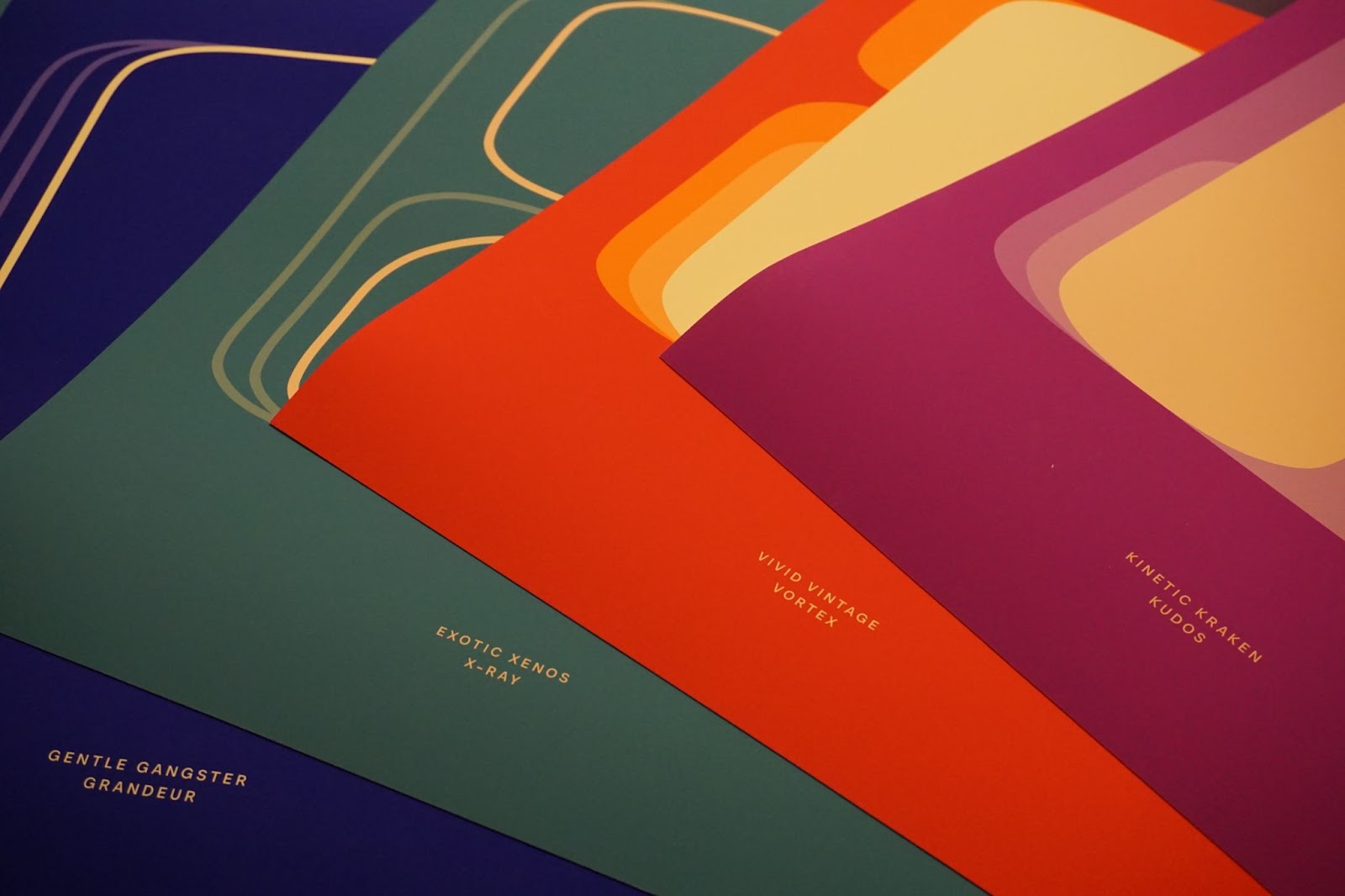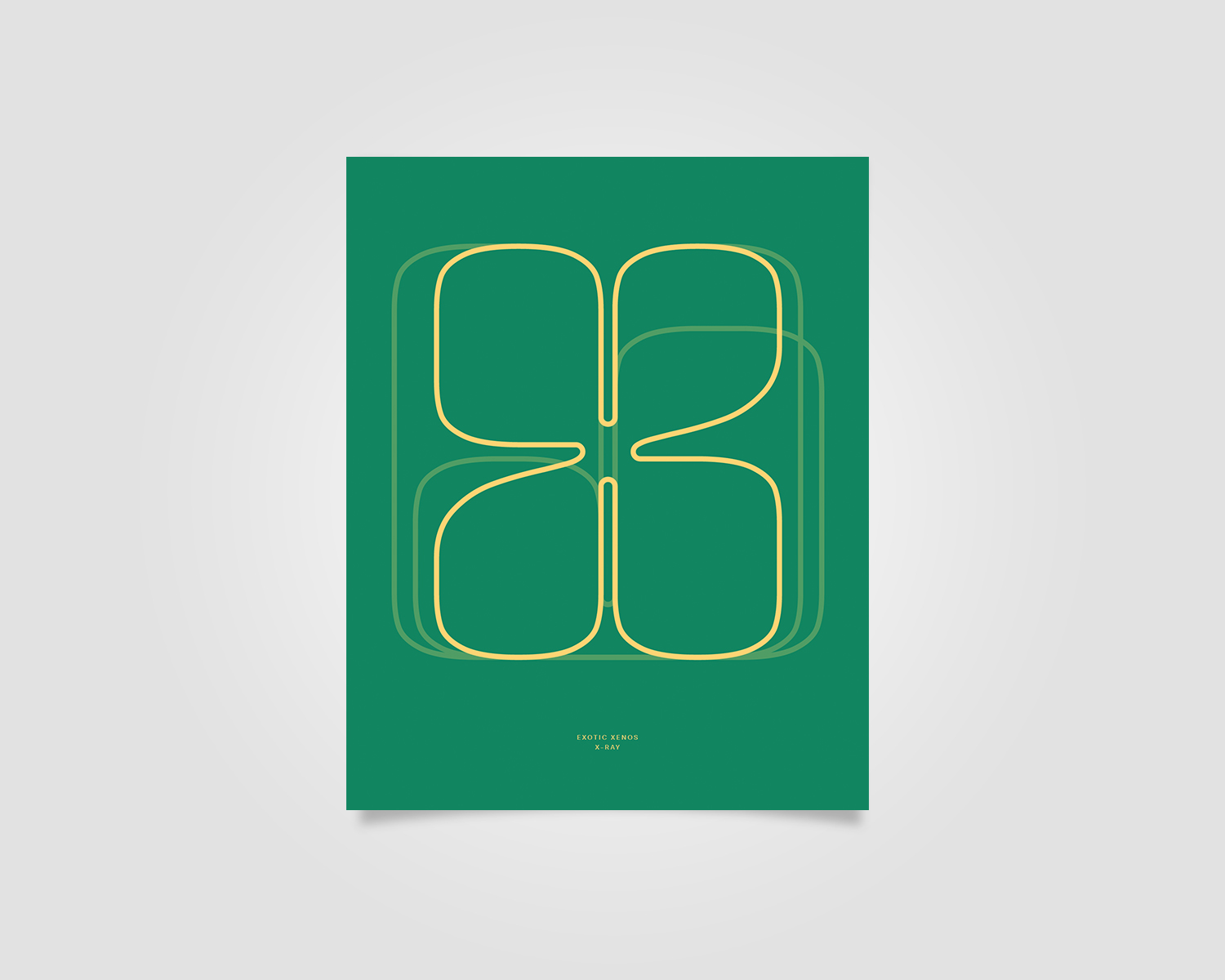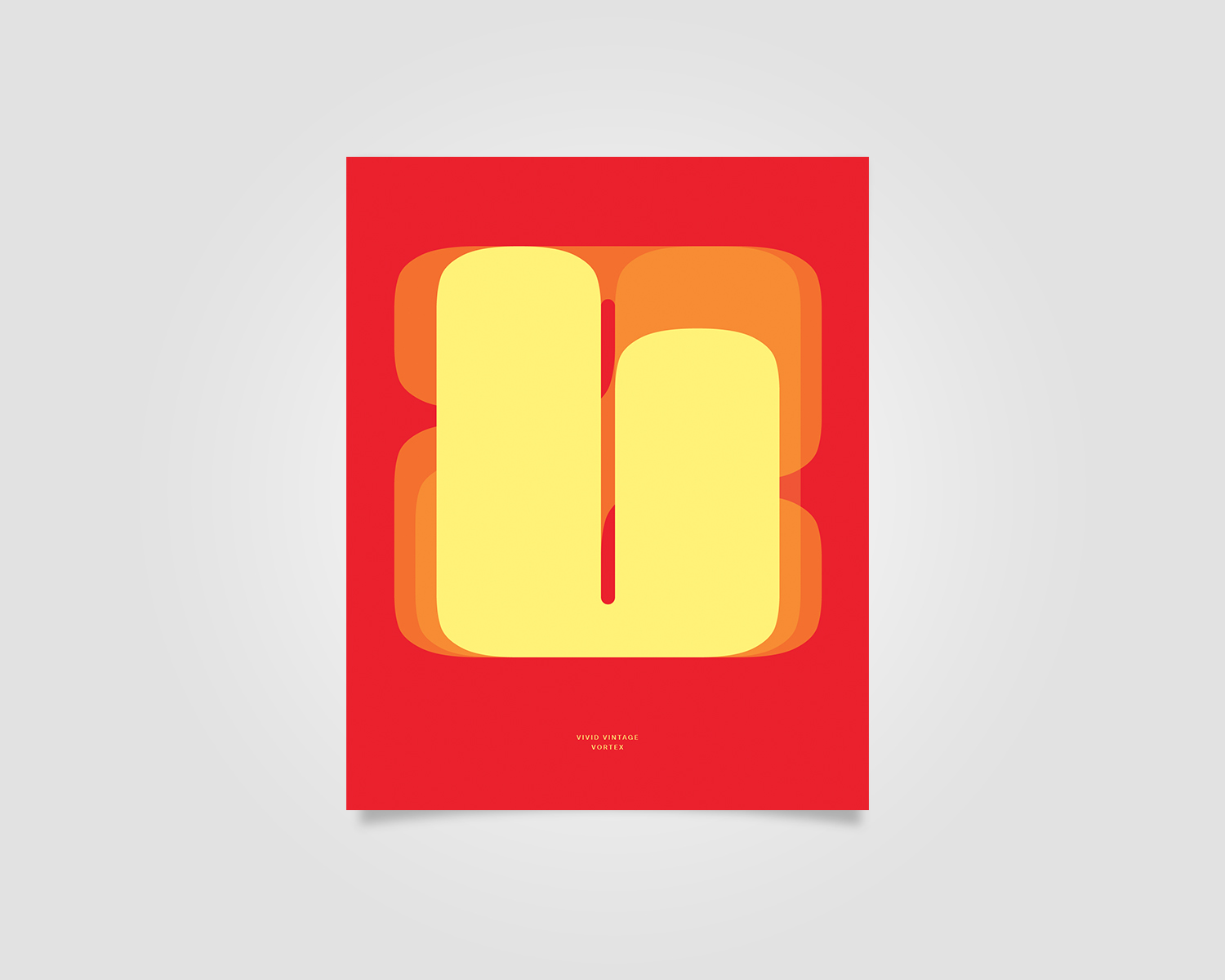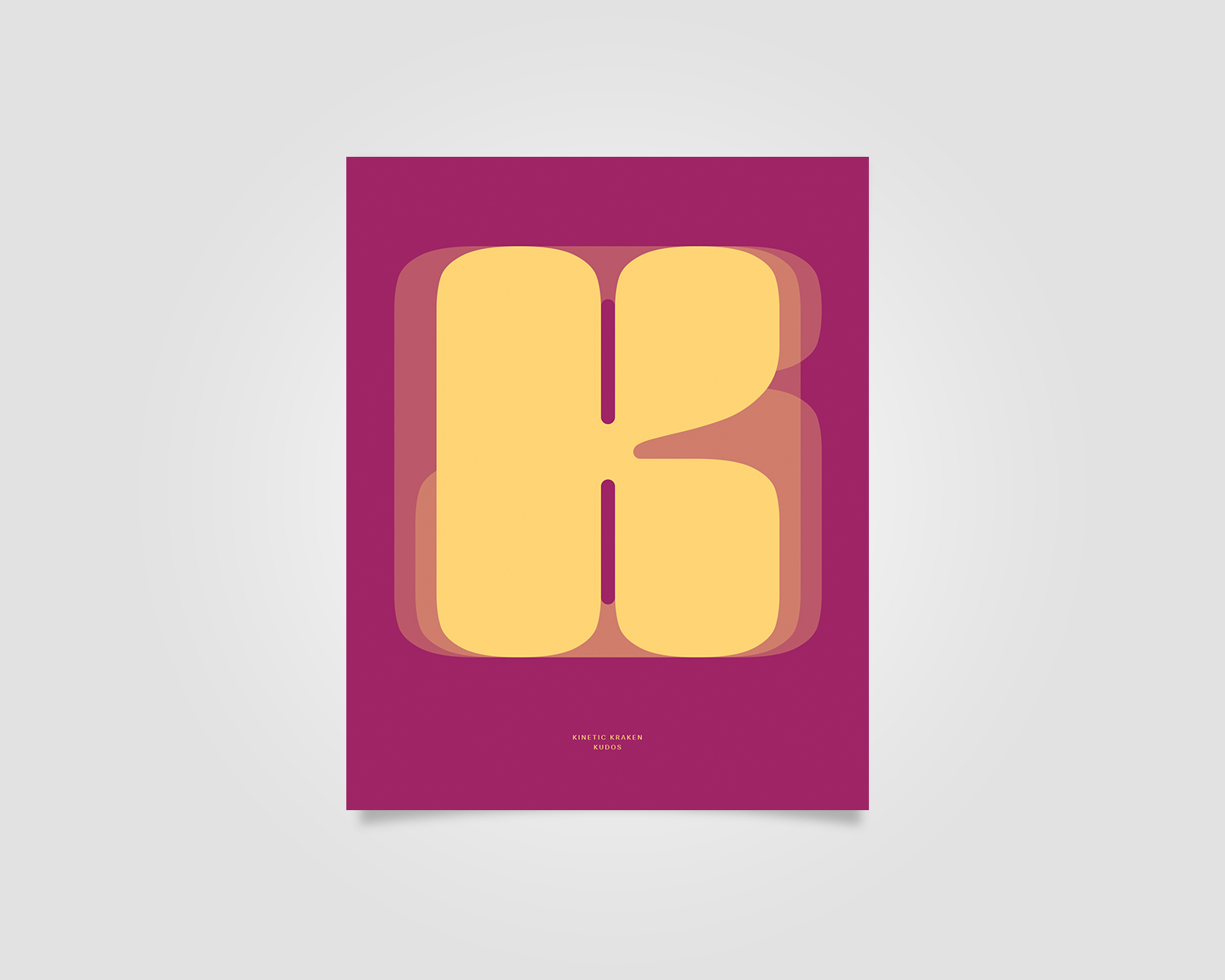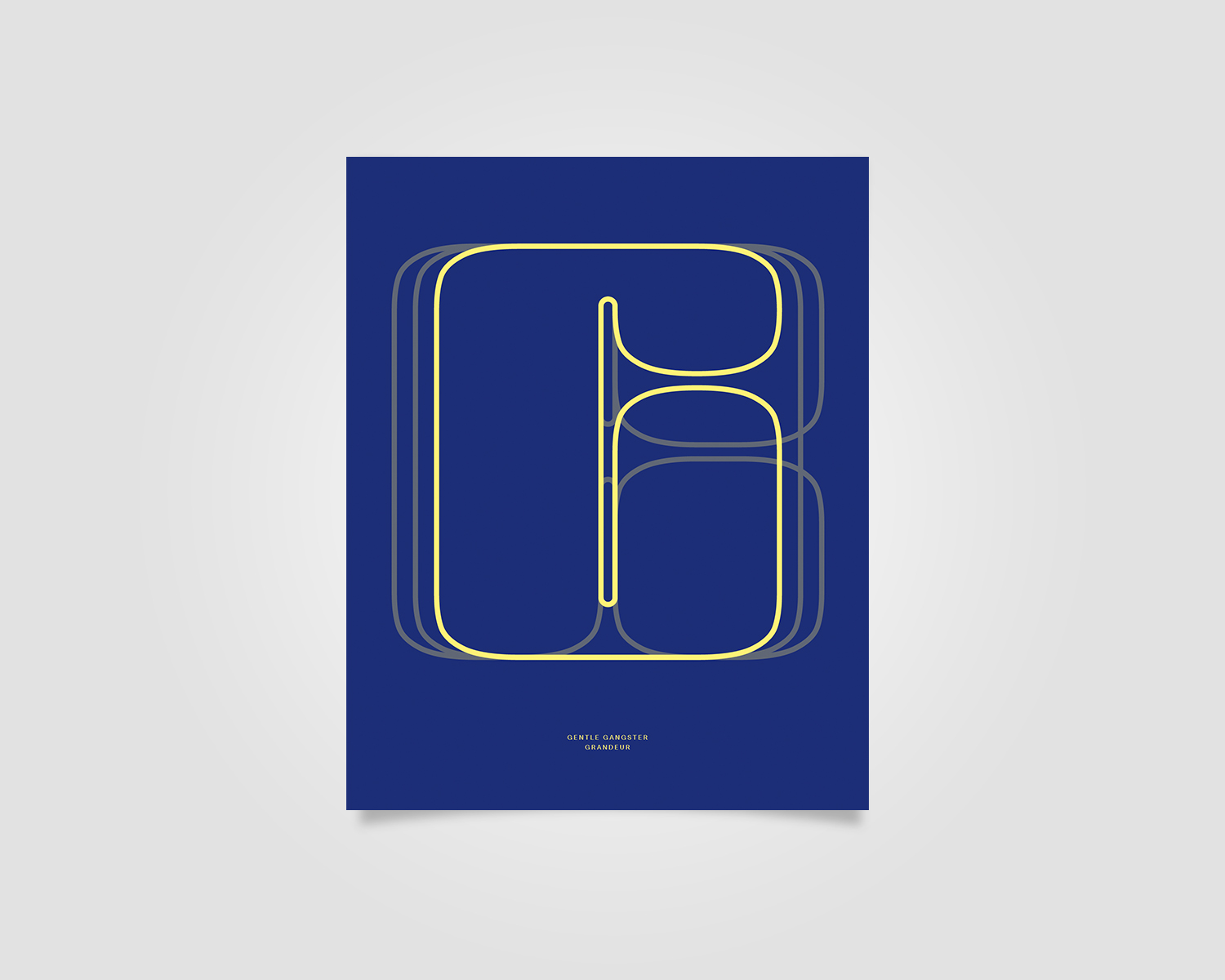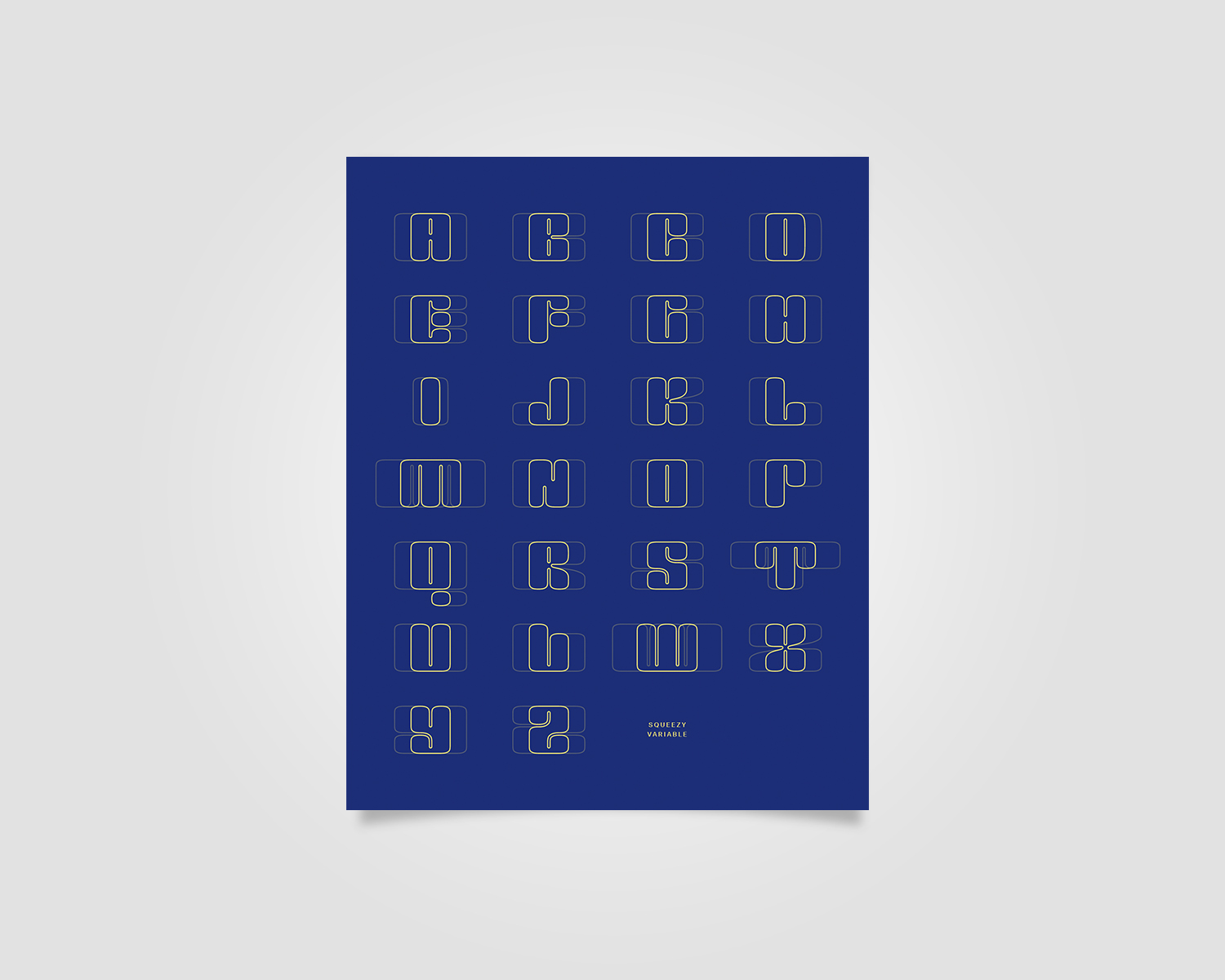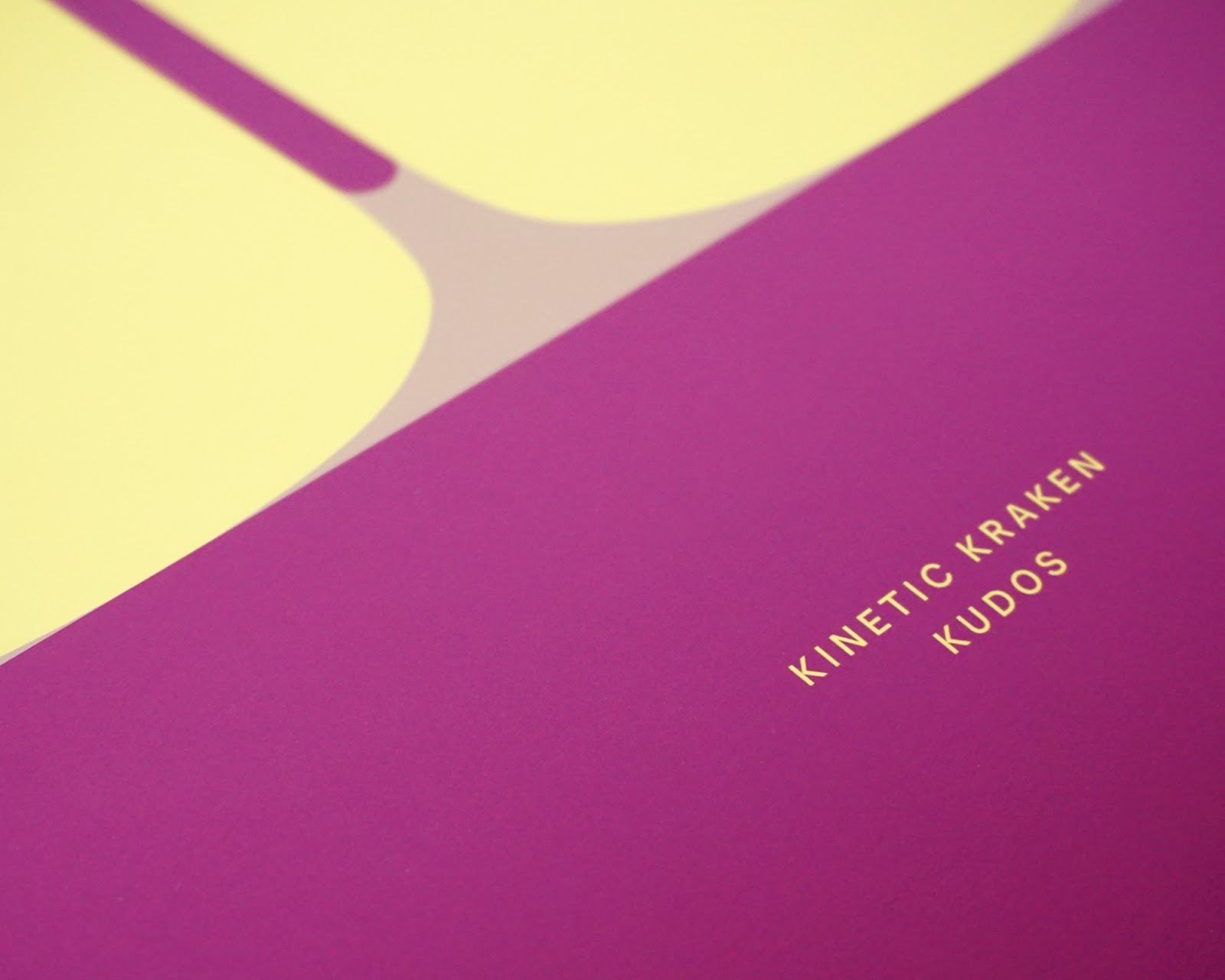
Hey design friends! Let’s talk type. For the longest time, fonts felt pretty fixed, right? You picked a weight, and that was that. But things are shifting, literally. Variable fonts have opened up a whole new playground for graphic design, letting type stretch, bend, and morph in ways we couldn’t easily do before.
From Pixels to Paper
One studio diving headfirst into this dynamic world is Overnice. They cooked up a variable font called Squeezy, embracing all the cool possibilities – think type that adapts and animates. They even built a colorful interactive experience around it, which snagged an honor from Awwwards. Pretty cool stuff for the screen.
But the folks at Overnice thought, why should digital have all the fun? That’s the question that sparked their Squeezy Variable Posters project. They decided to take the fluidity and vibrancy of their Squeezy font and translate it into tangible graphic design artifacts you can hang on your wall.
The Squeezy Poster Lowdown
So, what did they create? A series of limited-edition posters. Each design takes a letter or concept – like “Gentle Gangster,” “Exotic Xenos,” “Vivid Vintage,” or “Kinetic Kraken” – and brings it to life using the Squeezy font. The visuals play with form and overlapping colors, showcasing how the font can squeeze and expand.
The designs feel modern yet have a touch of retro charm, thanks to the color palettes and the smooth, expressive lines of the typeface. It’s a great example of how variable font technology can inspire fresh graphic design aesthetics. They didn’t just type out words; they crafted visual statements where the letterforms themselves are the main event.
Why It Matters for Graphic Design
This project sits right at the intersection of typography, technology, and print design. It’s more than just posters; it’s a physical exploration of digital potential. Variable fonts offer incredible flexibility – adjusting weight, width, or other attributes dynamically. Seeing Overnice apply this to print reminds us that innovation isn’t confined to screens.
The Squeezy posters demonstrate how graphic design can leverage new tools to create compelling visual narratives. The way the letters stretch and compress isn’t just functional; it’s expressive, adding personality and dynamism to the compositions. It pushes us to think about how type can perform visually, beyond just legibility.
For designers, it’s inspiring to see studios like Overnice experimenting and bridging the digital-physical gap. It challenges us to explore the capabilities of the tools we have and think about how they can translate across different mediums.
These posters are a beautiful example of contemporary graphic design pushing boundaries. It’s exciting to see variable fonts moving beyond web applications and finding a place in print and physical products.